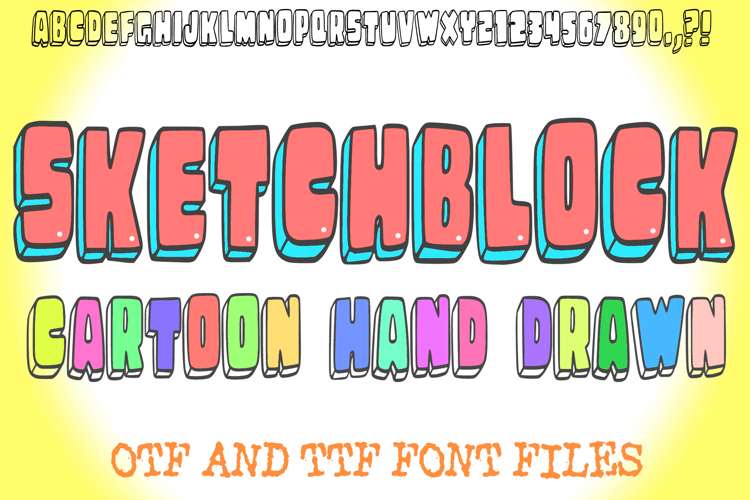
Sketchblocks 3D Cartoon Hand Drawn Lettering ABC Font Type
SketchBlocks – Cartoon 3D Hand Drawn Font is a bold and playful typeface that brings fun and creativity to any project. Each letter and number has been hand-drawn with a chunky, sketch-style outline and a 3D block effect, giving your text a fun cartoon feel.
This unique font is perfect for posters, children’s books, invitations, comics, logos, stickers, t-shirts, and digital designs. Its bold, outlined letters make it great for layering with colors, gradients, or patterns, while its hand-drawn style keeps things casual and artistic.
If you’re looking for a fun, creative, and eye-catching font, SketchBlocks will make your designs stand out with its cartoon-inspired, hand-sketched personality.